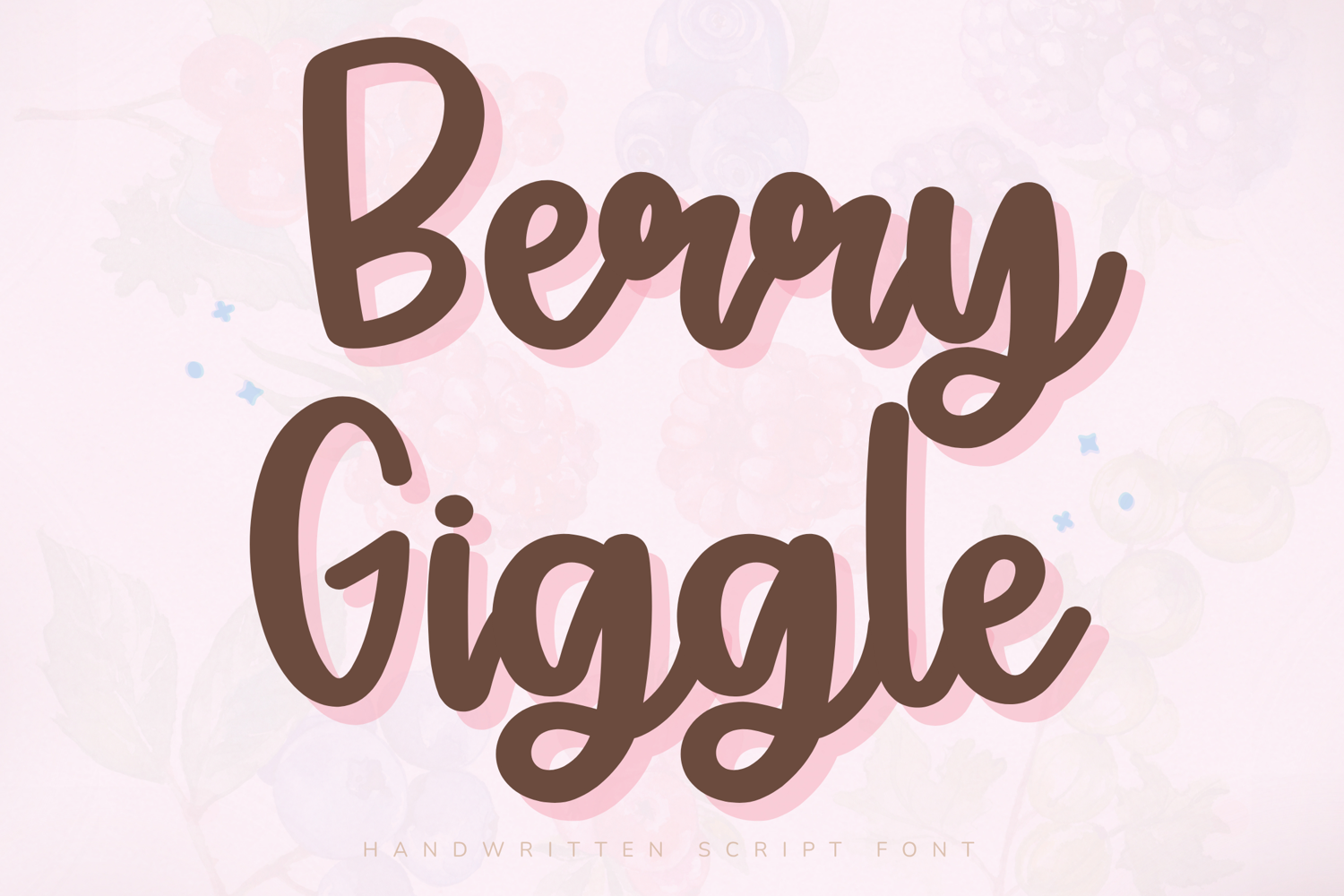
Berry Giggle - Handwritten Script Font
Berry Giggle – Handwritten Script Font
Berry Giggle is a sweet and playful handwritten script font inspired by juicy berries, cheerful smiles, and feminine creativity. With bold rounded strokes, a bouncy baseline, and whimsical curves, this font brings a fun and energetic personality to every design.
Perfect for crafters, planner lovers, teachers, and owners, Berry Giggle adds a charming handmade touch to stickers, journals, logos, packaging, and Cricut projects. Its lively letterforms are easy to read while still feeling unique and full of character.
Key Features:
Uppercase and lowercase letters
Numbers and punctuation
Bold rounded handwritten style
Bouncy baseline
Smooth script connections
Berry Giggle combines the softness of handwritten lettering with playful bounce and rounded forms. The result is a font that feels sweet, approachable, and full of joyful energy—ideal for feminine and creative designs.